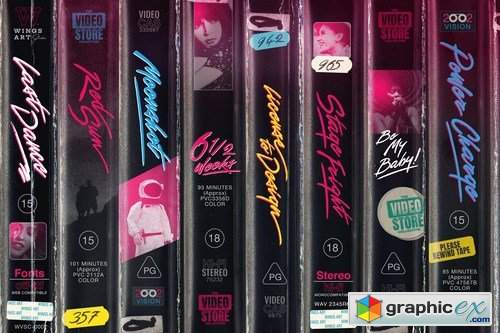
Last Dance - Retro Brush Script Font
Introducing the next release in a range of font designs inspired by 80s VHS covers and the nostalgic video rental store experience.
Taking design cues from the teen dramas and dance movies of the 1980s, this hand-inked script aims to capture the emotions and feel-good vibes of the cinematic blockbusters that captured our imaginations as kids and continue to inspire us as adults.